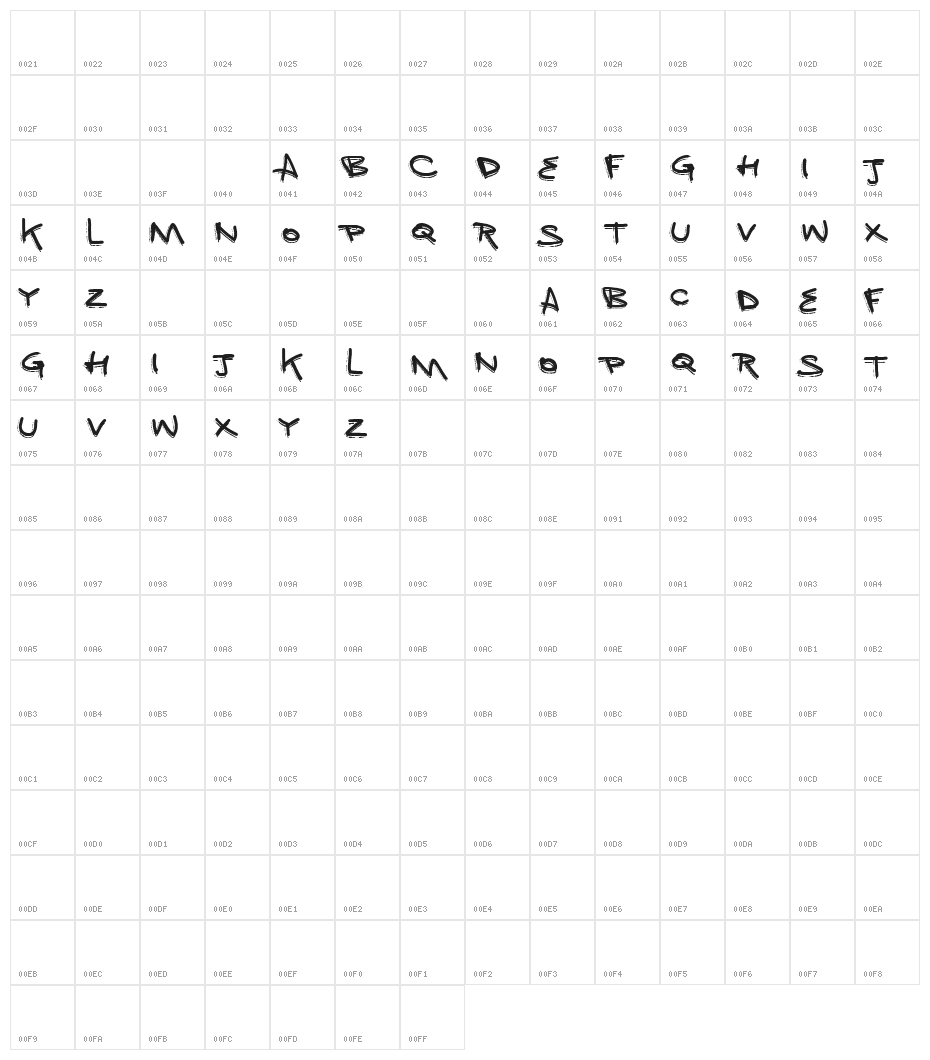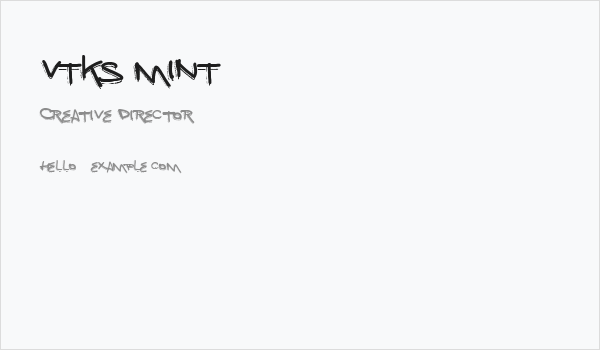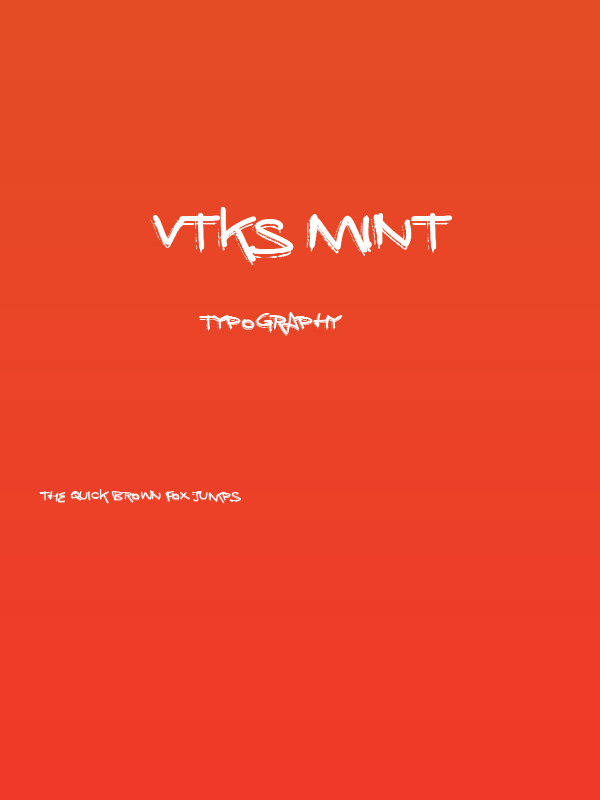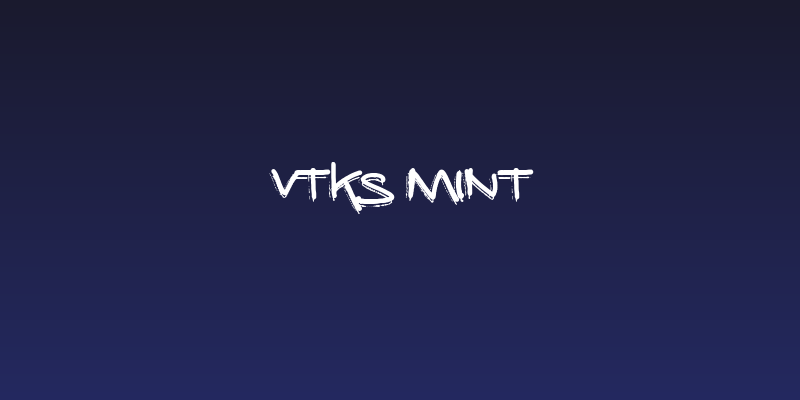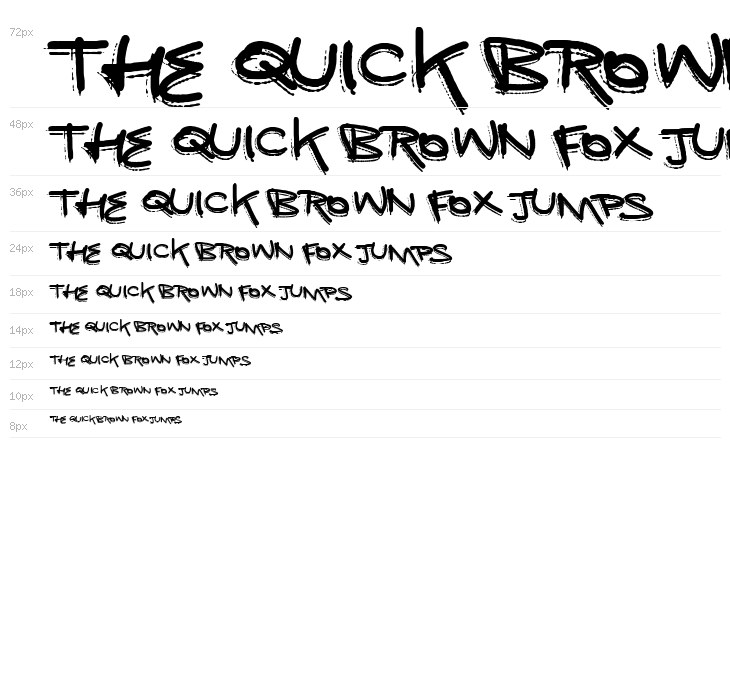
vtks mint Font
| Kategorien | Graffiti |
| Gesamtstil | Urban, Edgy, Graffiti |
| Anwendungsfall | Logos, Posters, Headlines |
| Vorgeschlagene Projekte | Perfect for street art designs, urban-themed posters, music album covers, and edgy branding projects. |